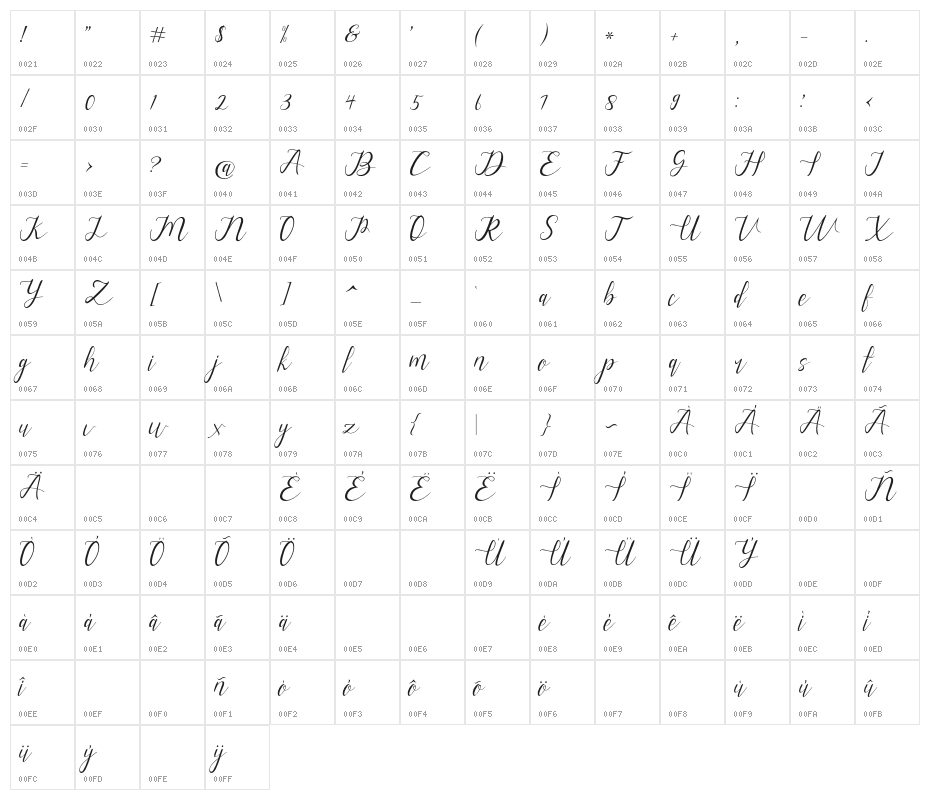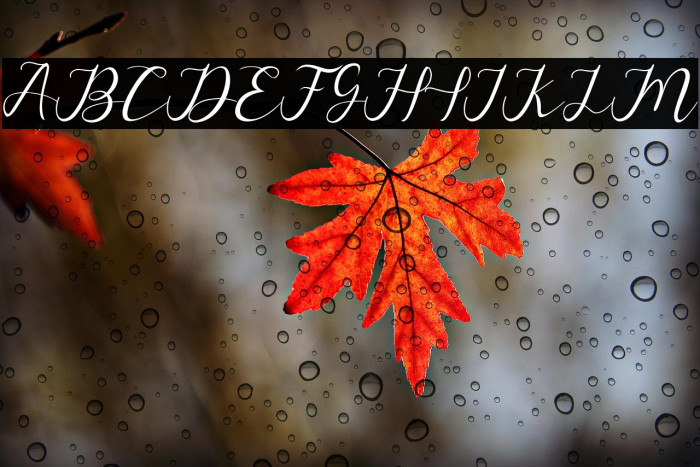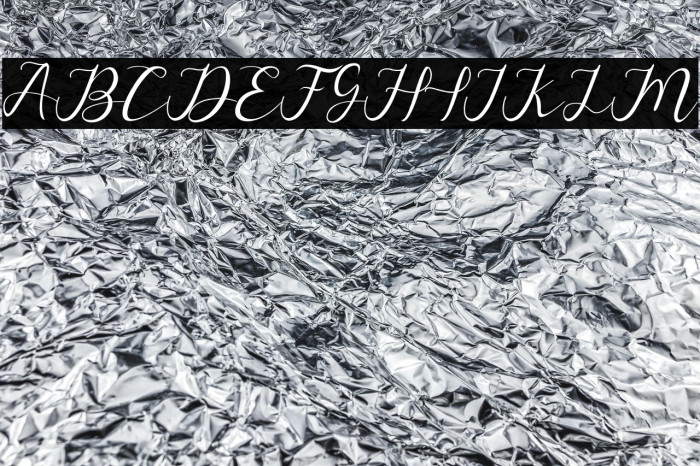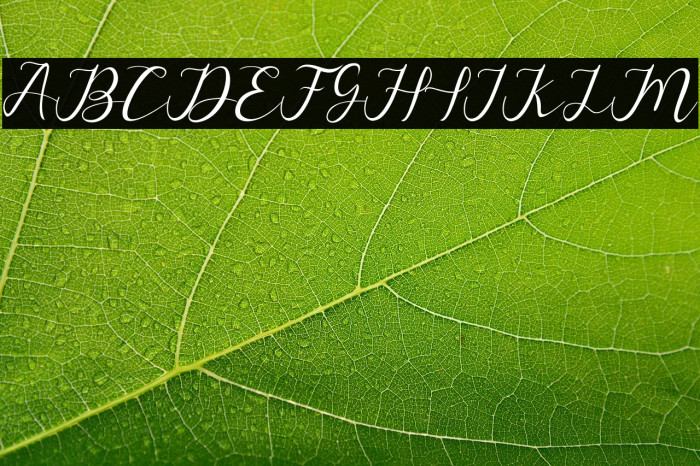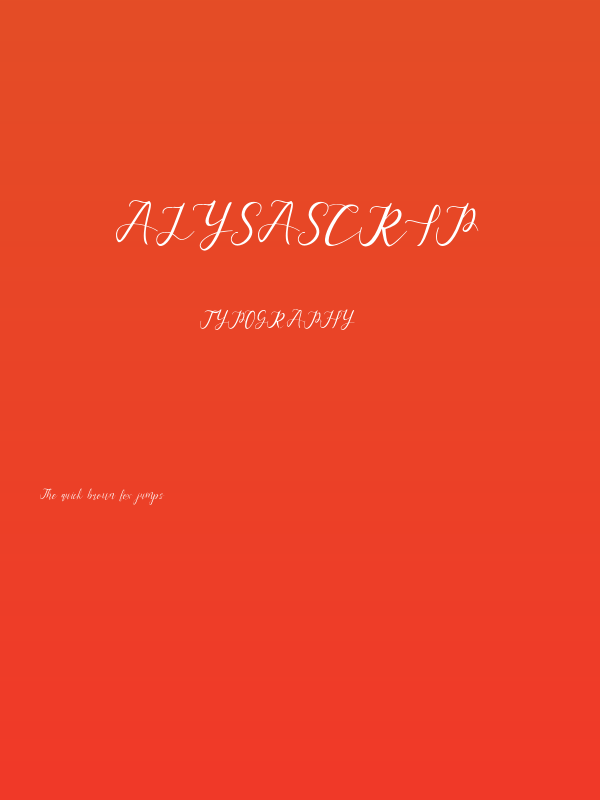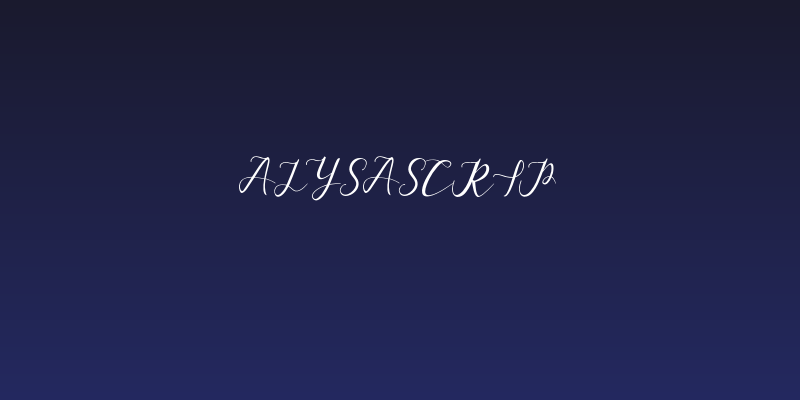
alysascrip Font
alysascrip Description
This elegant script font features a flowing, cursive style with smooth, connected strokes that emulate the fluidity of handwriting. The uppercase letters are characterized by their tall, graceful loops and swashes, while the lowercase letters maintain a consistent, flowing baseline. The numerals are designed with a similar flair, incorporating subtle curves that enhance the overall aesthetic. Special characters are thoughtfully integrated, maintaining the font's cohesive style. This font exudes sophistication and charm, making it ideal for formal invitations, branding, and decorative purposes.
| Overall Style | Elegant |
| Use Case | Invitations, Branding, Decorative |
| Proposed Projects | Ideal for wedding invitations, elegant branding, greeting cards, and decorative signage. |